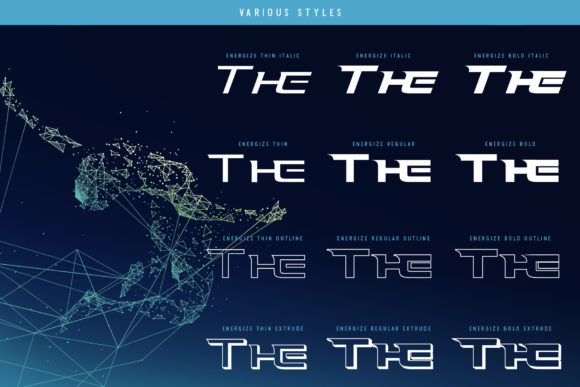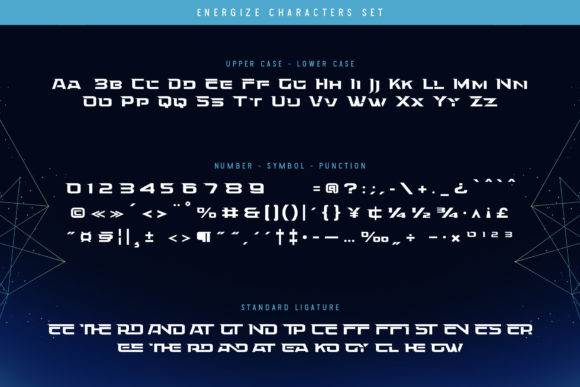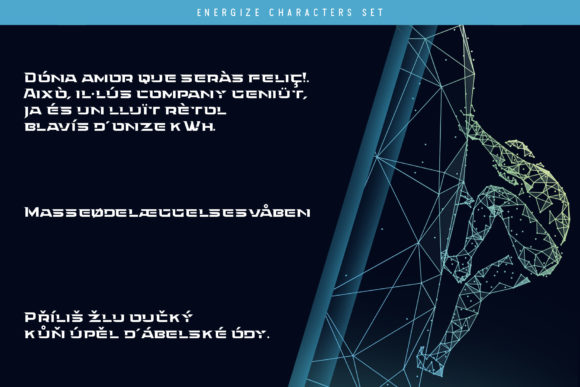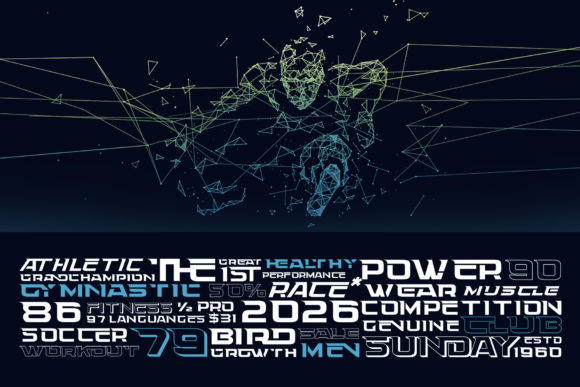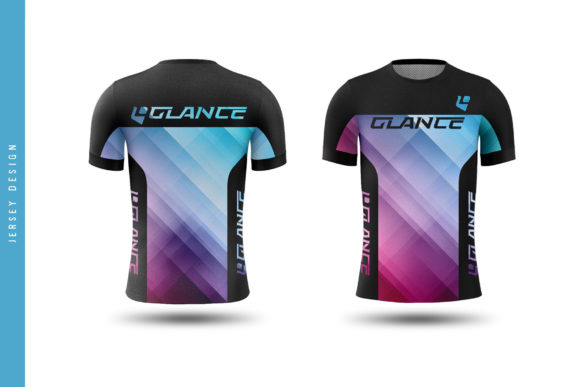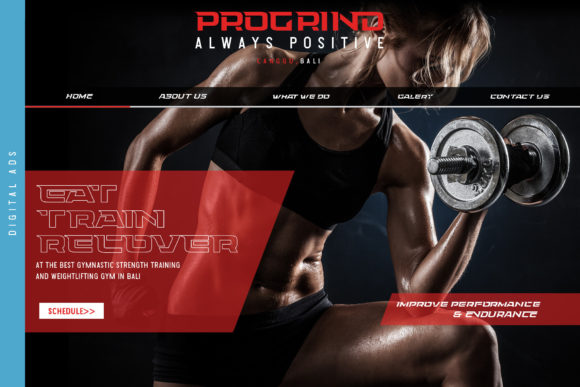
Introducing Energize Font: The Ultimate Choice for High-Octane Designs
Are you looking for a font that can add a burst of energy to your designs? Look no further than Energize Font, a cool and bold display font that’s perfect for any project related to speed, racing, and competition. With its sleek and dynamic design, Energize Font is sure to take your creations to the next level.
What Makes Energize Font So Special?
Energize Font is a carefully crafted font that’s designed to evoke the thrill of speed and competition. Its bold and edgy design makes it perfect for use in a variety of applications, from racing team logos and sports equipment branding to high-performance product advertising and more.
One of the key features that sets Energize Font apart is its unique lettering style, which is characterized by sharp lines, angular shapes, and a sense of movement and energy. This font is ideal for designers who want to create a sense of dynamism and excitement in their work.
Why Choose Energize Font for Your Designs?
There are many reasons why Energize Font is the perfect choice for designers and crafters who want to add a touch of high-octane energy to their work. Here are just a few:
- Perfect for Speed and Racing Themes: Whether you’re working on a project for a racing team, a sports equipment brand, or a high-performance product, Energize Font is the perfect choice. Its bold and dynamic design is sure to capture the excitement and energy of speed and competition.
- Highly Versatile: Energize Font is a highly versatile font that can be used in a wide range of applications, from logos and branding to advertising and marketing materials.
- Easily Readable: Despite its bold and edgy design, Energize Font is surprisingly easy to read, making it perfect for use in headlines, titles, and other applications where readability is key.
- Unique and Memorable: With its unique lettering style and dynamic design, Energize Font is sure to make your designs stand out from the crowd and leave a lasting impression on your audience.
How to Use Energize Font in Your Designs
Using Energize Font in your designs is easy. Here are a few tips to get you started:
- Pair it with a Neutral Font: For maximum impact, pair Energize Font with a neutral font that provides a clean and simple contrast to its bold and dynamic design.
- Use it for Headlines and Titles: Energize Font is perfect for use in headlines and titles, where its bold and attention-grabbing design can really make an impact.
- Experiment with Colors: Don’t be afraid to experiment with different colors and textures to really make Energize Font pop.
In conclusion, Energize Font is a cool and bold display font that’s perfect for any designer or crafter who wants to add a touch of high-octane energy to their work. With its unique lettering style, dynamic design, and high versatility, Energize Font is the perfect choice for any project related to speed, racing, and competition. So why wait? Download Energize Font today and take your designs to the next level!
Key Features of Energize Font
- Font Type: Display Font
- Font Style: Bold, Dynamic
- Best for: Speed, Racing, Competition, Sports, High-Performance Products
- Q: What type of font is Energize Font? A: Energize Font is a bold and dynamic display font.
- Q: What is Energize Font best for? A: Energize Font is perfect for any project related to speed, racing, and competition.
- Q: Is Energize Font easy to read? A: Yes, despite its bold and edgy design, Energize Font is surprisingly easy to read.